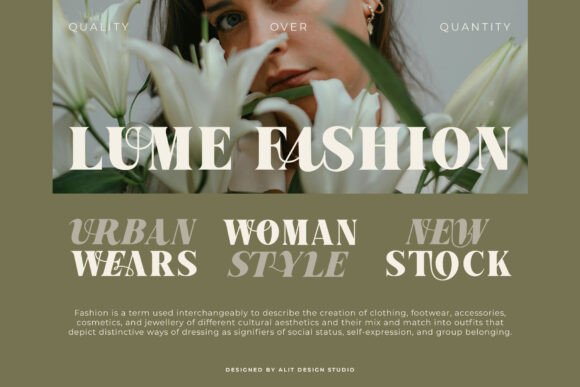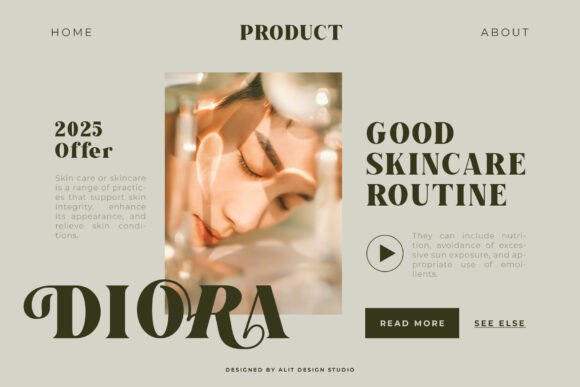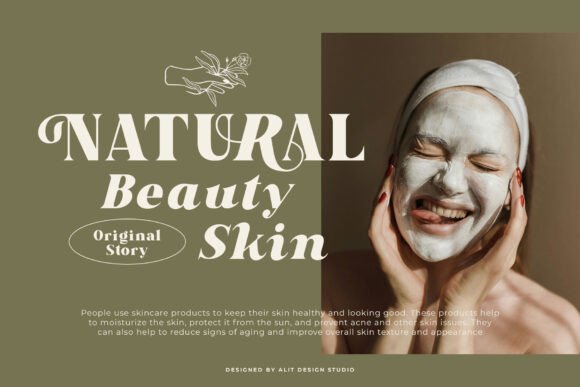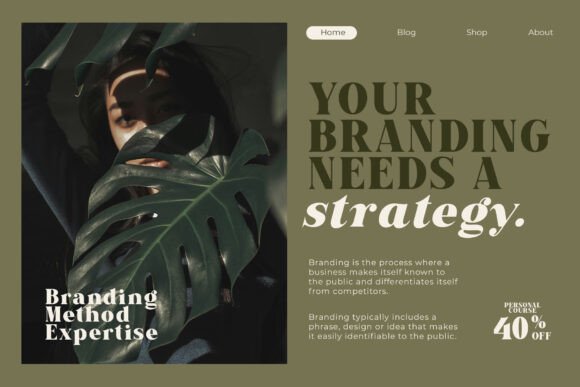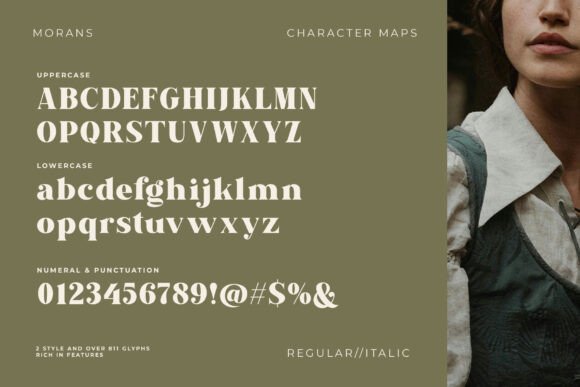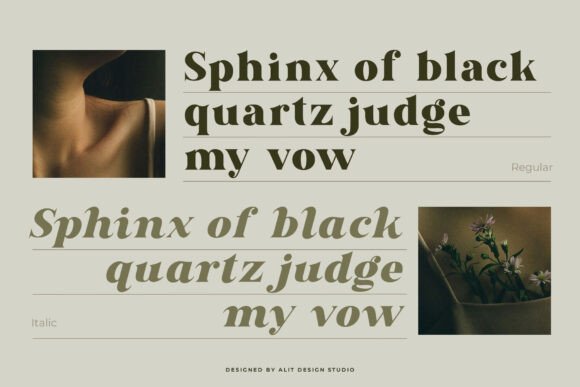
Introduction to Morans Font
Have you ever found yourself stuck in a creative rut, staring at a blank canvas or a blank page, waiting for inspiration to strike? For many designers, this is a familiar feeling. But what if I told you there’s a font that could change the game for you? A font that exudes elegance, sophistication, and versatility, making it perfect for designers looking to make a bold and refined statement in their projects.
Enter Morans Font, a premium serif typeface that’s about to become your new best friend. With its high-quality design and transparent background, this font is a game-changer for any creative project. Whether you’re working on a magazine cover, a branding campaign, or a web design, Morans Font is the perfect design resource to elevate your work to the next level.
Key Features of Morans Font
- High-quality design with a unique, creative touch, perfect for various projects.
- Transparent background, allowing for seamless integration with any design element or background.
- Supports a wide range of languages, making it a valuable resource for multilingual creative projects.
- Available in a single size, optimized for high-resolution displays with a resolution of 300 DPI.
- Designed to be versatile, suitable for use in various creative projects, from graphics to digital art.
Honest Review: Morans Font
As a designer, I’m always on the lookout for high-quality design resources that can elevate my creative projects. Morans Font is one such find, and I’m excited to share my thoughts on it.
- ✨ High-quality typography: Morans Font boasts a clean, modern aesthetic that’s perfect for a variety of design applications.
- ✨ Transparent background: The font’s transparent background makes it easy to use with images or other design elements.
- ⚠️ Limited font styles: While Morans Font has a solid foundation, it could benefit from additional font styles to increase its versatility.
- ⚠️ Limited language support: If you need a font that supports multiple languages, Morans Font might not be the best choice.
Overall, Morans Font is a solid addition to any designer’s toolkit. Its high-quality typography and free download make it an excellent resource for creative projects. While it may have some limitations, I believe it’s worth considering for your next design project.
To get the most out of Morans Font, experiment with different font sizes, colors, and combinations. You can also use it in conjunction with other design resources to create unique and eye-catching content.
Morans Font is suitable for a wide range of creative projects, including graphic design, digital marketing, and business communications. Its transparent background and high-quality design make it an ideal choice for designers and non-designers alike.
Q: Is Morans Font suitable for a high-quality design project?
Morans Font is a high-quality design resource, perfect for use in creative projects that require a unique and stylish font. Its high-quality design ensures that it will look great on various devices and platforms, making it an excellent choice for designers looking to create a professional-looking project.